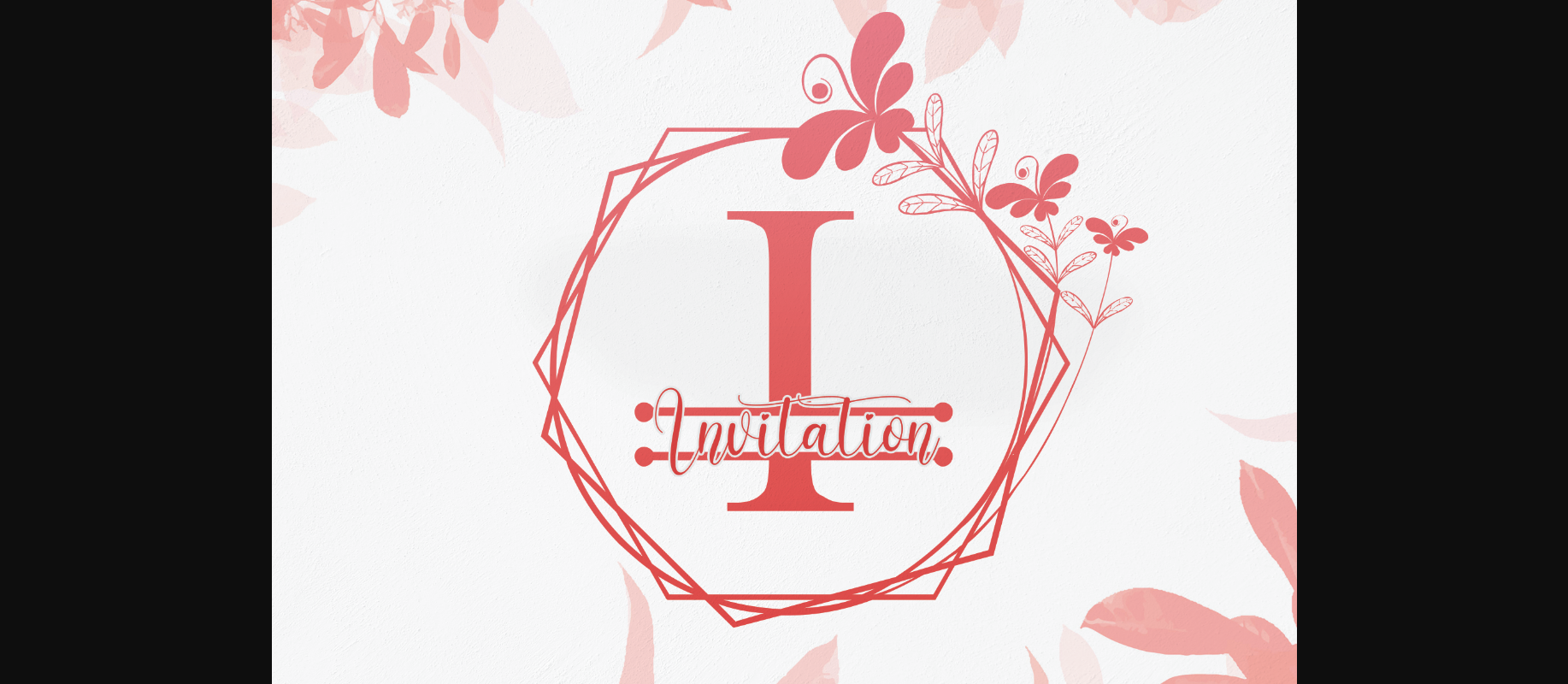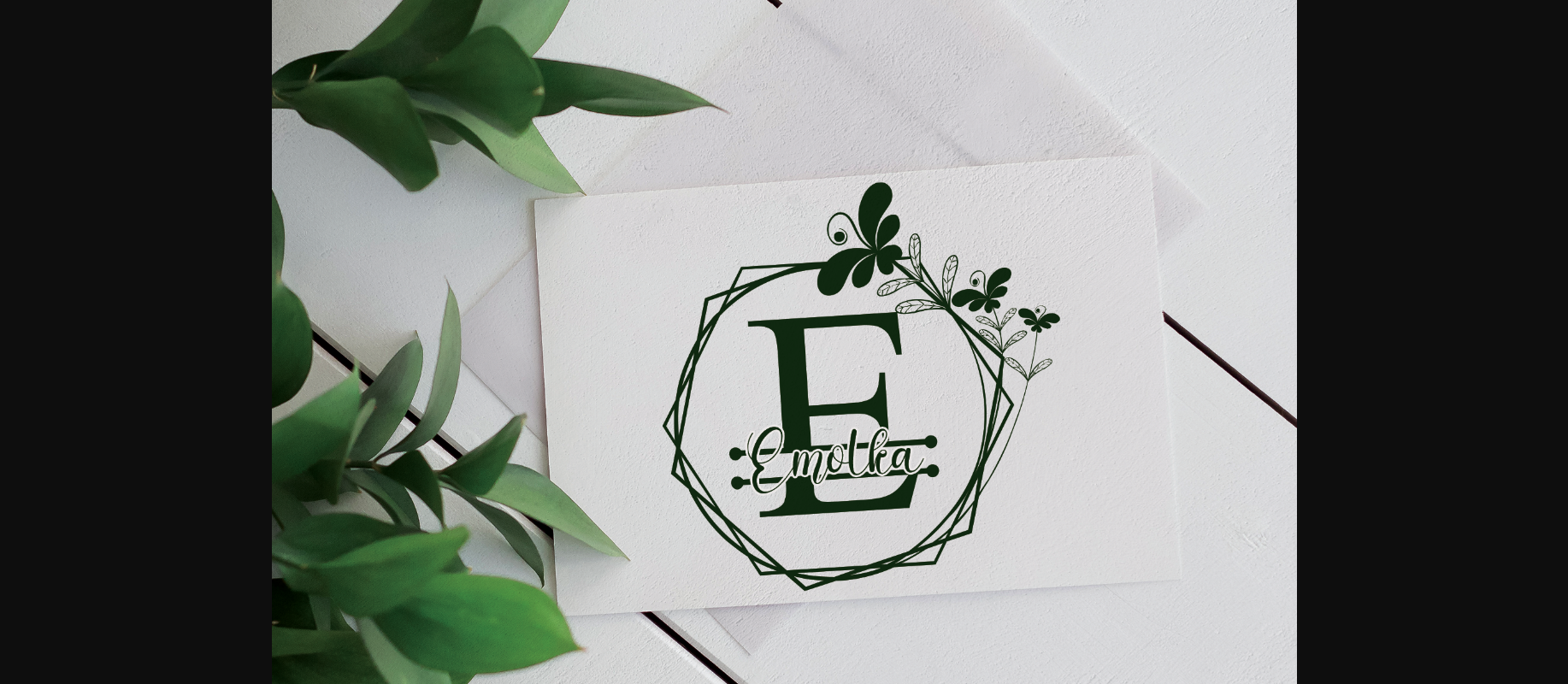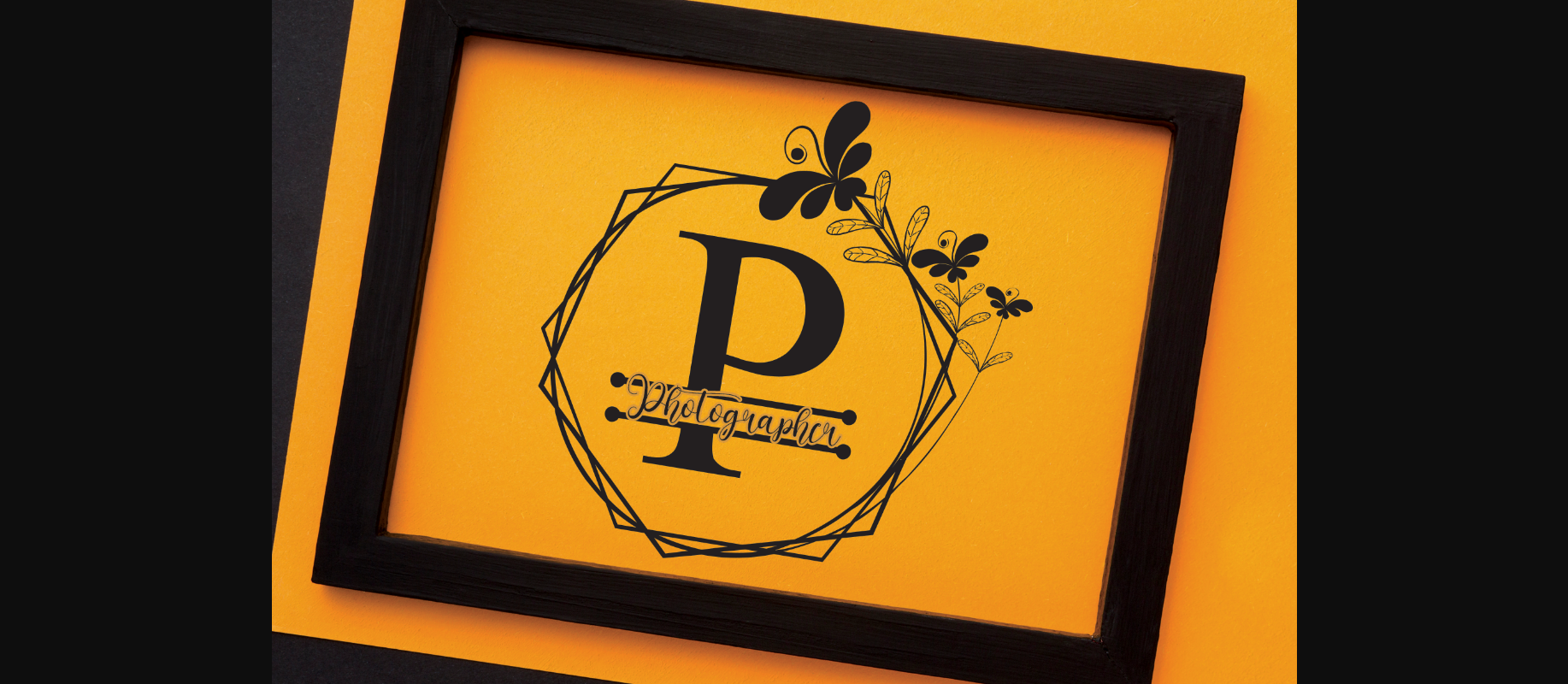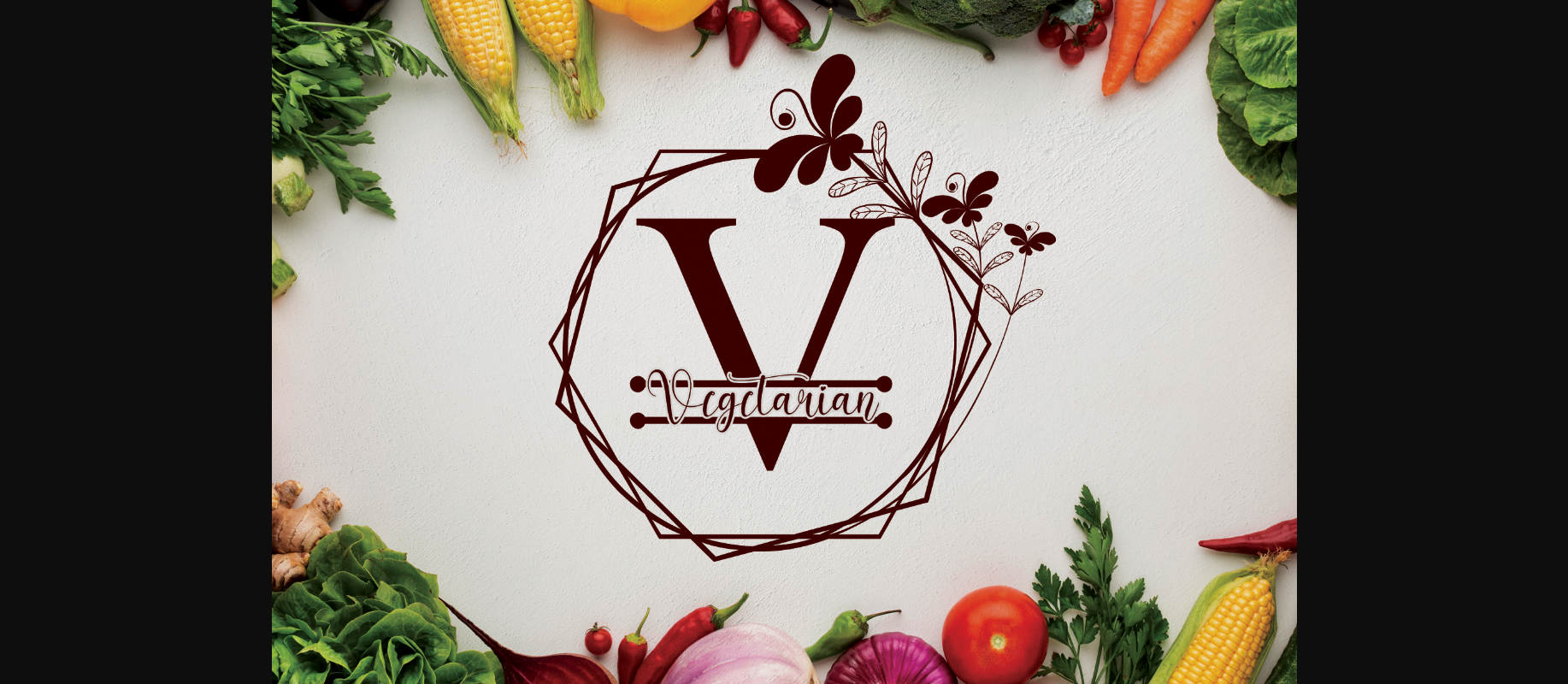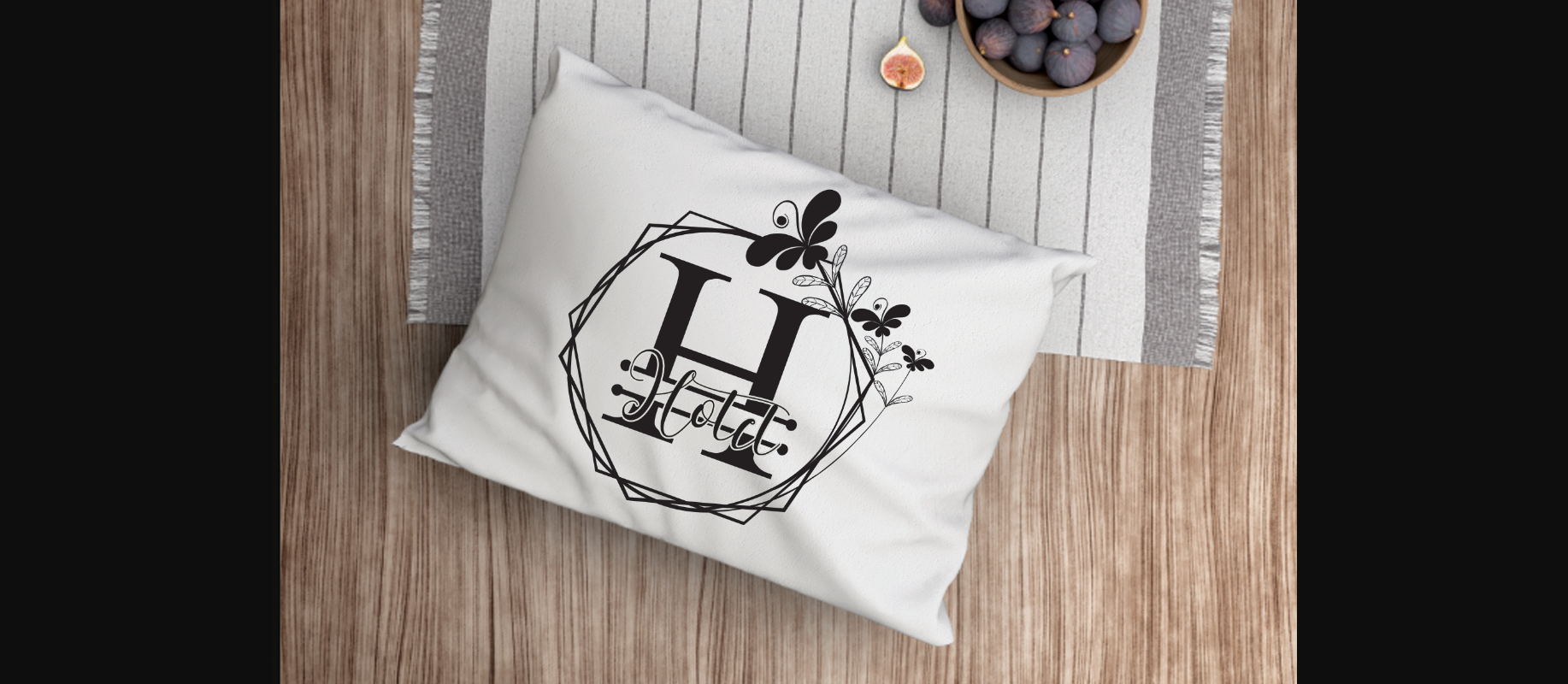
HomeDecorative FontsInvitation Font Decorative Fonts Invitation Font FacebookXPinterestWhatsApp 1 of 7 ... Invitation Font Poster 2... Invitation Font Poster 3... Invitation Font Poster 4... Invitation Font Poster 5... Invitation Font Poster 6... Invitation Font Poster 7... About Invitation Font Invitation is a dainty and highly detailed decorative font. Add this romantic and lovely looking font to each of your love letters, wedding invitations or favorite design ideas, and you will be astounded by the outcome. DOWNLOAD NOW People also explored Shutter Times Font Halloween Midnight Font Galapagos Font Starfish Font Beehive Font Scary Font Vemina Script Font Jenny Lolita Font Alkes 294 0 TagsInvitation Font Previous articleHoneymoon FontNext articleHornets Font LEAVE A REPLY Cancel reply Comment: Please enter your comment! Name:* Please enter your name here Email:* You have entered an incorrect email address! Please enter your email address here Website: Save my name, email, and website in this browser for the next time I comment. Personal Use Free Mounets Personal Use Free Read more about this font Crayones Personal Use Free Read more about this font Over the Top Personal Use Free Read more about this font Angelia Personal Use Free Read more about this font BLOG 5 Fonts That Will Dominate Design Trends in 2026 5 Fonts for 2026 That Will Dominate Design Trends Typography plays a critical role in visual communication, and as we look ahead to 2026, it’s... How to Cut Any Font on Cricut: Convert a Font to SVG (Free) Transform Your Website: Elevate Your Typography with 7 Best Web Font Generators The 10 Best Handwriting Fonts to Add Personality to Your Designs